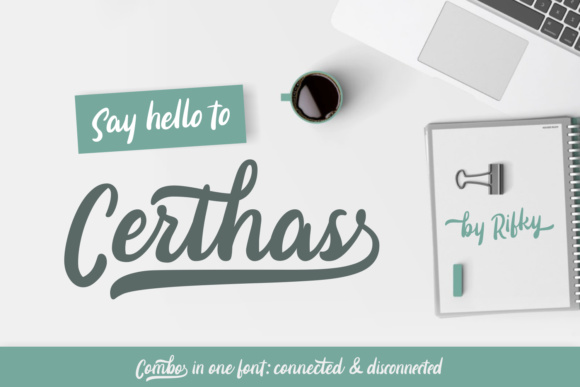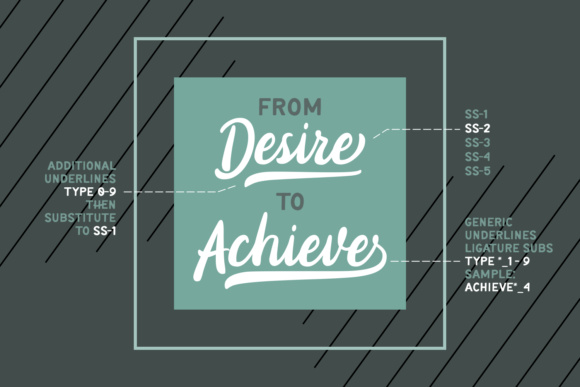
Certhas Font
About Certhas Font
Certhas is a fun and painterly handwritten font, ideal for use in headlines and more! This swashy script is reminiscent of old-school baseball logos, and can give your projects a very Americana appeal.